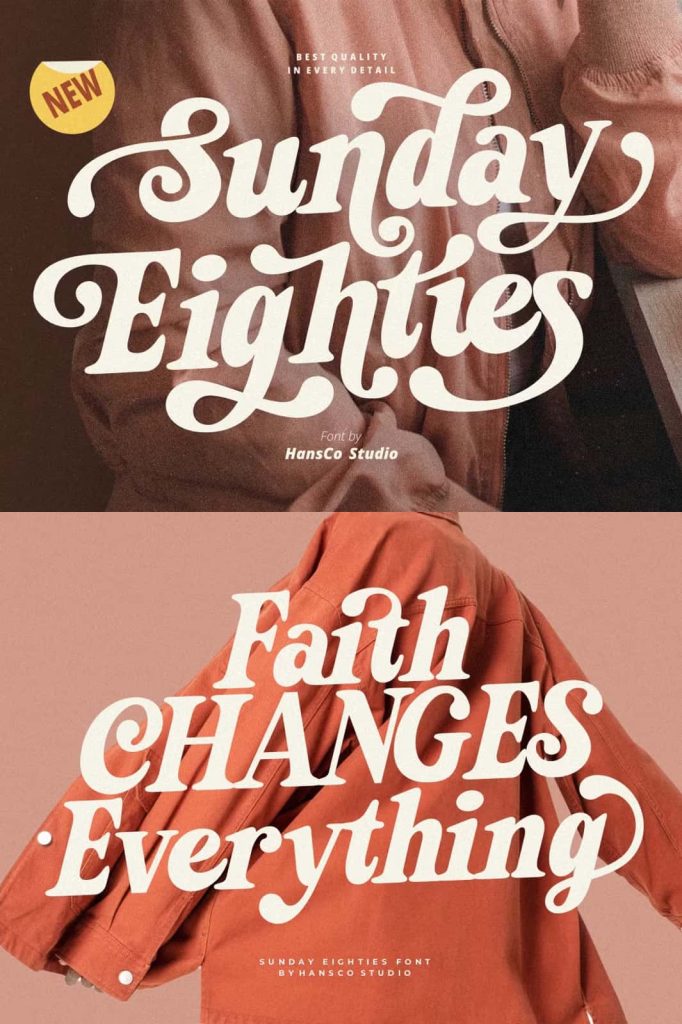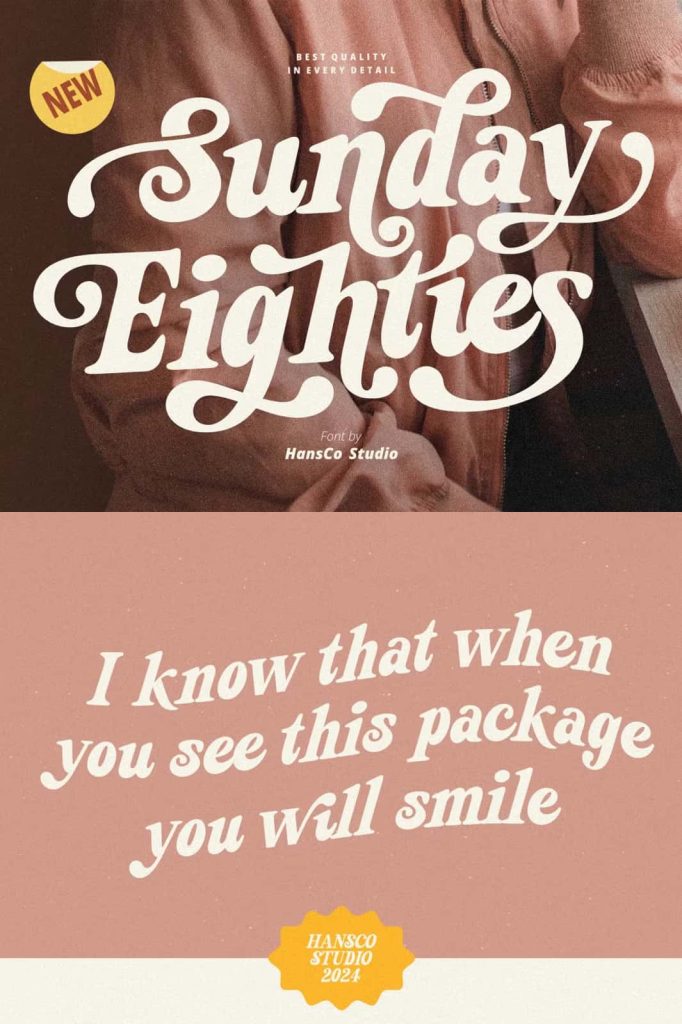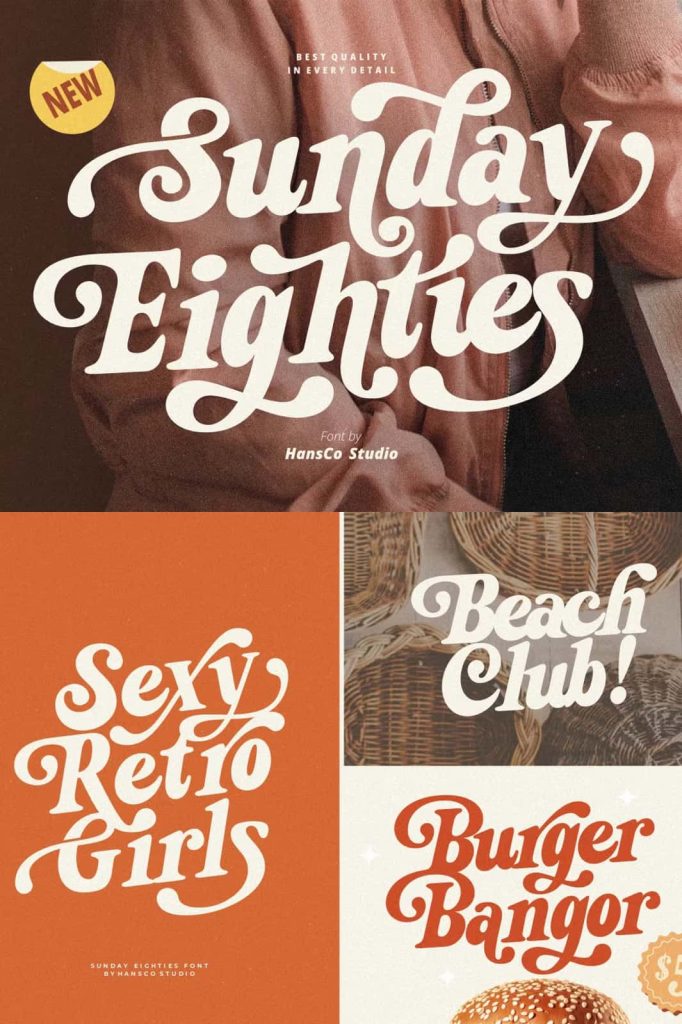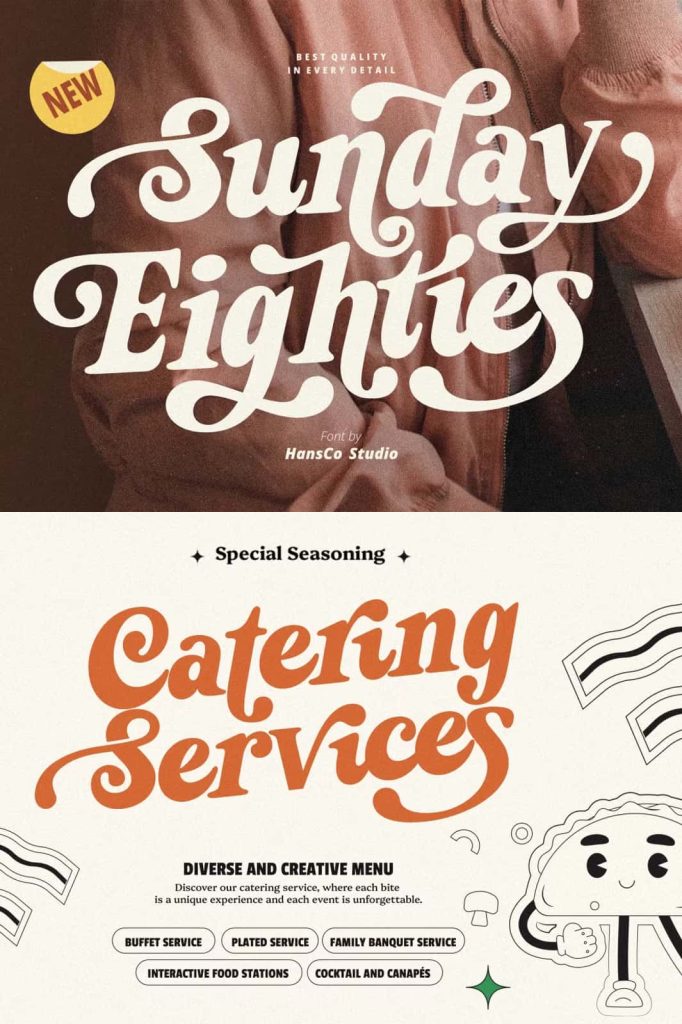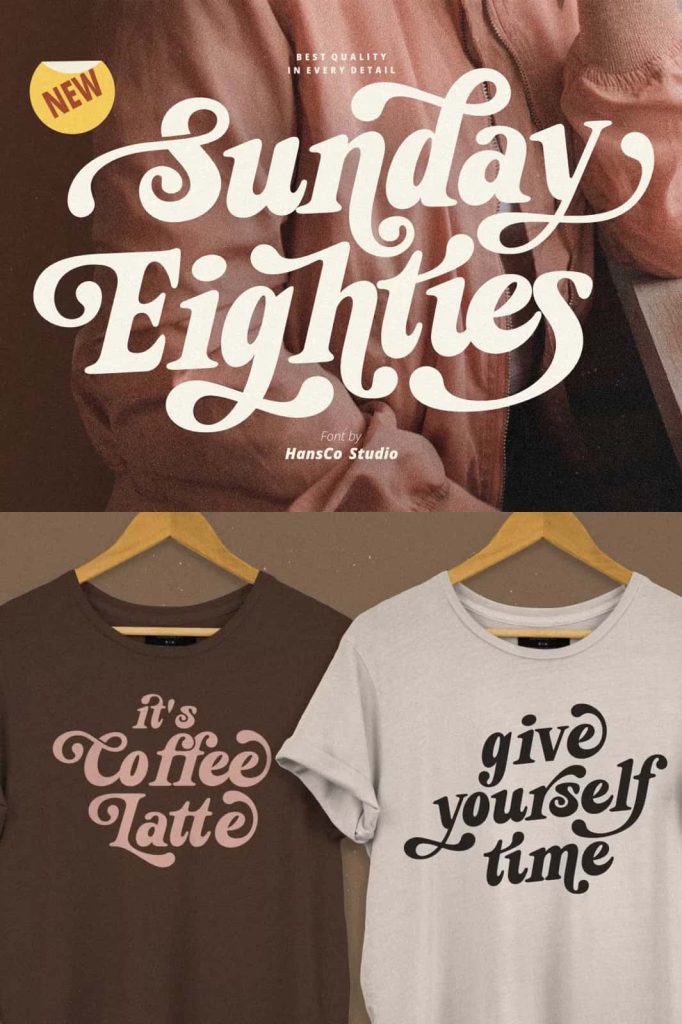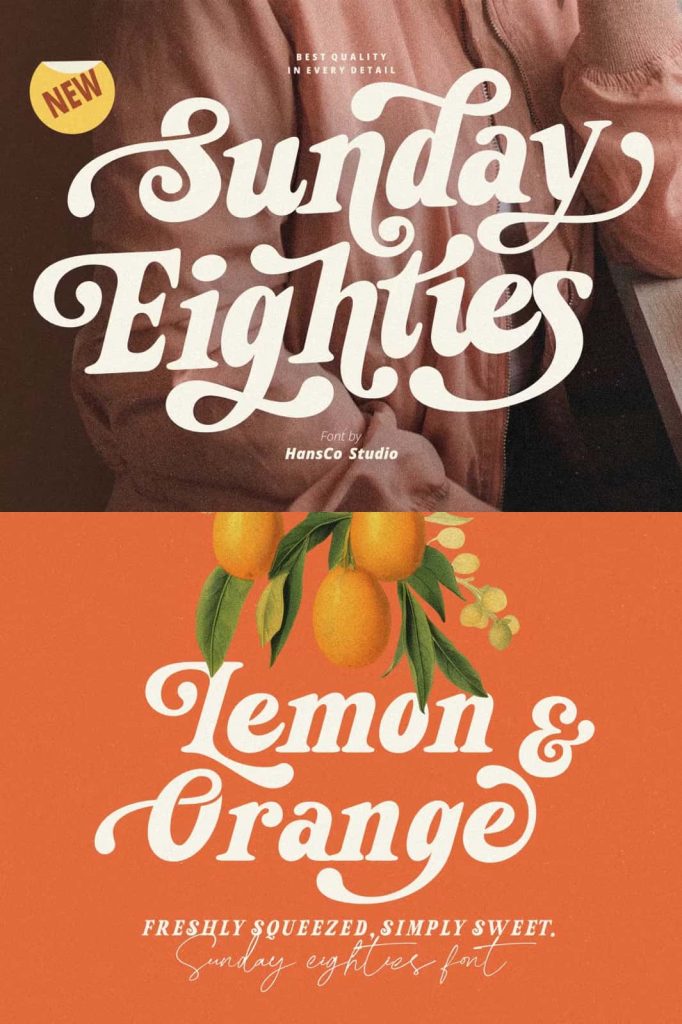
Sunday Eighties Font: A Bold Retro Vintage Serif for Standout Designs
Sunday Eighties Font brings a refreshing blend of simplicity, bold structure, and nostalgic charm into every creative project. This retro vintage serif typeface captures the essence of classic typography from the vibrant eighties era, offering strong personality and expressive character shapes that instantly elevate any visual work. Designed to highlight clarity and impact, Sunday Eighties Font stands out in both modern and retro design environments, giving creators a powerful tool to build memorable and engaging visuals.
Experience the Bold Simplicity of Retro Vintage Design
Every stroke in Sunday Eighties Font reflects the confident and iconic design style of the eighties. Its bold serif structure allows designers to communicate authority, creativity, and a sense of timeless appeal. The simple yet striking letterforms give readers a strong visual experience, making this font perfect for headlines, posters, advertisements, packaging, and branding materials that demand attention. The retro vintage aesthetic brings depth and personality to layouts without overwhelming the message.
The balanced proportions and smooth curves create consistency across all characters, ensuring readable and visually appealing typography. Sunday Eighties Font offers the perfect combination of boldness and elegance, making it versatile enough for both large display usage and more refined editorial applications.
Enhance Creativity with Additional Swash Alternatives
One of the standout features of Sunday Eighties Font is the inclusion of additional swash alternative characters. These stylish swashes expand your creative possibilities, allowing you to design compositions with more flair and sophistication. The swash characters bring expressive motion and decorative charm, ideal for designers who want to produce a dramatic and polished look.
Whether you want to craft a bold retro logo, create a nostalgic set of posters, or develop unique packaging, the swash alternatives help you enhance the design’s personality. These additional characters also work beautifully in editorial design, wedding invitations, social media graphics, merchandise, and promotional materials. The stylistic variations allow smooth customization, empowering you to adjust the tone of your typography with ease.
Why Designers Choose Sunday Eighties Font
Designers appreciate Sunday Eighties Font because of its adaptability and strong visual presence. Its bold serif forms convey confidence, making it perfect for branding identities that need to stand apart. The retro influences add warmth and nostalgia, giving viewers a sense of familiarity while still feeling modern and relevant.
Sunday Eighties Font performs exceptionally well in digital and print formats, maintaining clarity and smooth shape definition across different sizes and media. This makes it a reliable choice for logos, banners, book covers, product labels, website headers, and promotional layouts.
Perfect for a Wide Range of Creative Projects
The versatility of Sunday Eighties Font ensures seamless integration into various design concepts. Its bold retro appearance works beautifully for vintage-themed branding, while its clean structure supports modern minimalist layouts. You can use it to create statement headlines, dynamic promotional graphics, or polished editorial compositions. The font’s stylistic swashes enhance design flow and add decorative depth whenever needed.
Because of its timeless aesthetic, Sunday Eighties Font continues to appeal to designers looking to create projects with long-lasting impact. Its bold shape and nostalgic nuance make it a valuable addition to any designer’s font library.
Sunday Eighties Font is more than just a retro serif typeface. It is a powerful design tool that blends bold simplicity with vintage character, giving creators the ability to craft expressive and memorable visuals. With its strong serif structure and additional swash alternatives, this font supports endless creative possibilities. Bring energy, nostalgia, and clarity to your next design project with the timeless charm of Sunday Eighties Font.